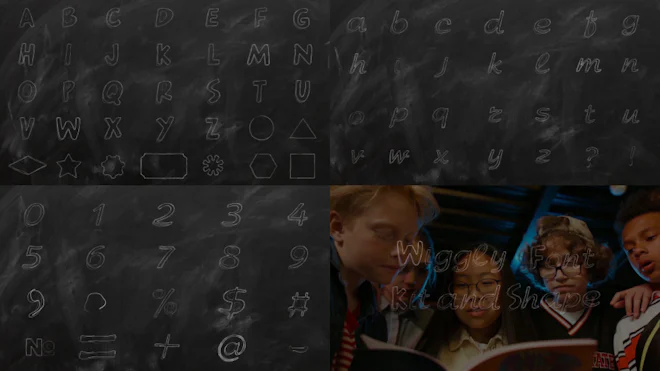
This DaVinci Resolve template includes a collection of letters, numbers, symbols and geometric shapes in a scribble style. You can customize the colors. A great way to create your texts and improve your works. Try it now! A video tutorial is included.